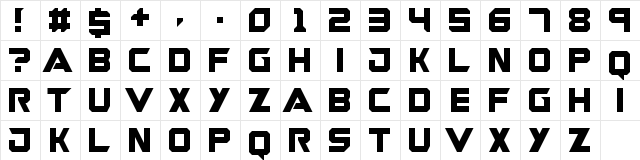
Guardians Regular
| Designer | GeronimoFonts |
Design Context for Guardians Typeface
Guardians is a composed and adaptable typeface that performs quietly and consistently across a wide range of design contexts.
Pro Tip: Use Guardians in both headline and body roles to test its range before committing to a single application.